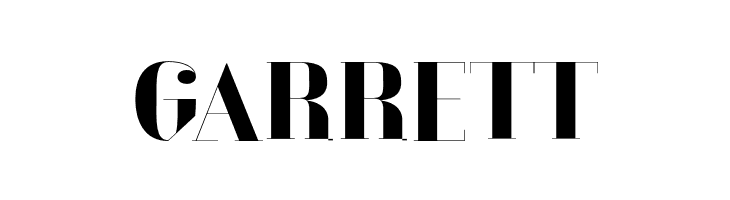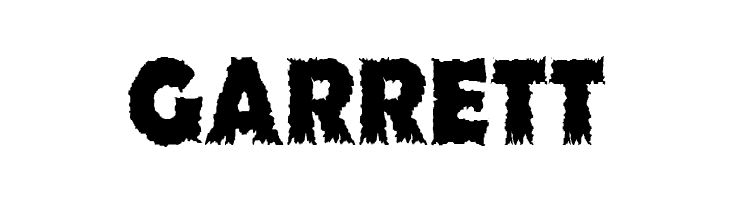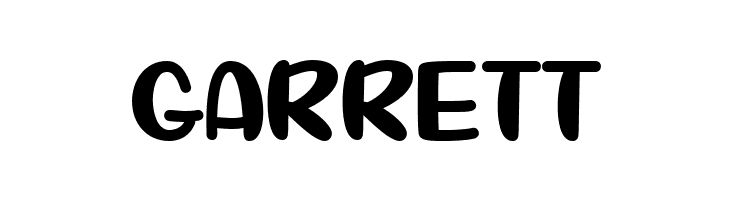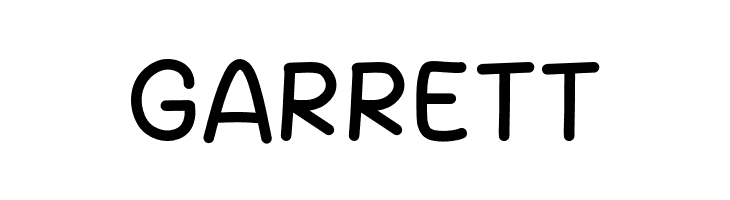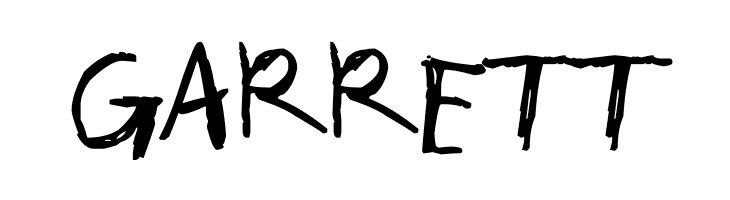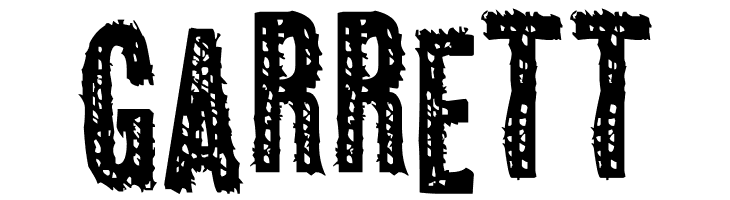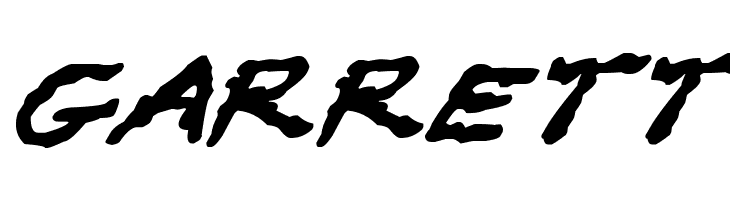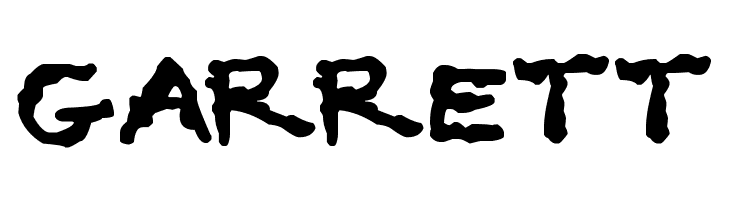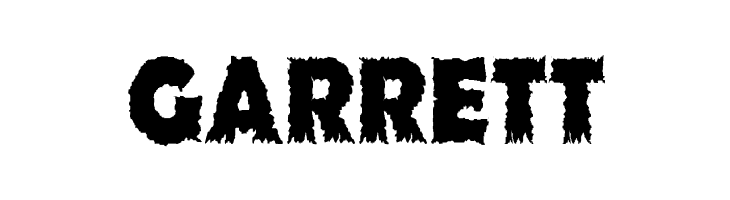
A playful, brush-stroke inspired font with a hand-drawn aesthetic.
A bold, rugged font with an organic, ink-blot appearance.
A bold, italic font with a textured, hand-drawn appearance.
A bold, jagged font with a rough, energetic style.
A bold, textured decorative font with jagged edges and high contrast.
A playful, bold font with rounded edges and a handwritten feel.
A playful, rounded font with smooth curves and consistent stroke width.
A bold, high-contrast font with elegant serifs and a modern yet classic style.